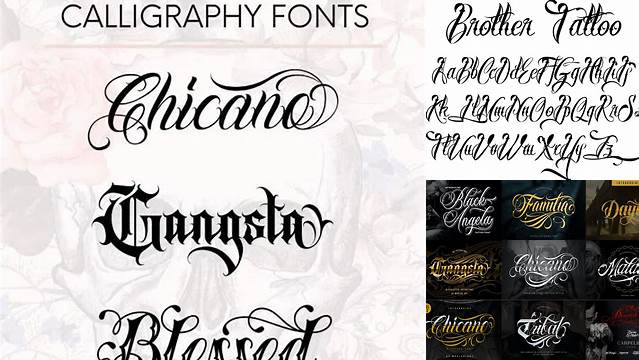
Best Cursive Fonts For Tattoos For Men: Styles & Tips
Hey guys! Getting a tattoo is a big decision, and choosing the right font is just as important as the design itself, especially when you're thinking about cursive fonts. Cursive fonts can add a touch of elegance, personality, and uniqueness to your tattoo. But with so many options out there, how do you pick the perfect one? Don't worry, we've got you covered! This article will walk you through some of the best cursive fonts for tattoos specifically for men, helping you make a choice you'll love for years to come.
Why Choose Cursive Fonts for Tattoos?
Cursive fonts are awesome for tattoos because they bring a certain flow and style that other fonts just can't match. Think about it – a well-chosen cursive font can make your tattoo look super sophisticated and personal. They’re not just about looking pretty; they’re about adding a layer of meaning and emotion to your ink. When you go for a cursive font, you're not just picking letters; you're choosing a vibe, a feeling, and a way to express yourself. So, let’s dive deeper into why these fonts are such a hit and how they can make your tattoo stand out.
One of the main reasons guys opt for cursive fonts is the elegant and fluid aesthetic they offer. Unlike blocky or rigid fonts, cursive mimics handwriting, giving your tattoo a personal and intimate feel. It’s like you’ve penned the words directly onto your skin. This fluidity can make your tattoo look more artistic and less like a standard text, adding a unique touch that really grabs attention. Imagine a quote flowing smoothly along your arm or a name gracefully curving around your wrist – that’s the power of cursive.
Personalization is key when it comes to tattoos, and cursive fonts offer a ton of it. Each font has its own unique flair, from delicate and swirly to bold and dramatic. This means you can find a font that perfectly matches your personality and the message you want to convey. Are you going for a romantic vibe? A light, flowing script might be perfect. Want something with a bit more edge? A bolder, more stylized cursive could be the way to go. This versatility ensures your tattoo isn’t just a design but a true reflection of who you are.
Cursive fonts are also fantastic for incorporating longer quotes or meaningful phrases into your tattoo design. The flowing nature of the script allows words to connect and blend seamlessly, creating a visually appealing piece that tells a story. Think about your favorite quote, a mantra you live by, or a dedication to someone special. Cursive can transform these words into a beautiful and meaningful work of art on your body. The way the letters link together adds a sense of continuity and depth, making the message even more impactful.
Plus, let's be real, cursive fonts just look cool. They have a timeless quality that never goes out of style. From classic scripts to modern interpretations, there’s a cursive font out there for every taste. This timelessness means your tattoo will look just as good years from now as it does the day you get it. It’s an investment in a style that’s proven to stand the test of time, making it a smart choice for something as permanent as a tattoo.
In short, cursive fonts bring a unique blend of elegance, personalization, and timeless style to tattoos. They allow you to express yourself in a way that’s both visually stunning and deeply meaningful. So, if you’re looking for a font that will make your tattoo truly special, cursive is definitely worth considering.
Top Cursive Fonts for Men's Tattoos
Okay, let’s get to the good stuff! We’re diving into some of the top cursive fonts that look amazing on guys. When picking a font, think about the size and placement of your tattoo. Some fonts look better big, while others shine in smaller spaces. Also, consider your personal style – do you want something classic, modern, bold, or delicate? Here are some fantastic options to get your creative juices flowing.
1. Blackletter (Gothic Script)
When you think of Blackletter, you might imagine ancient manuscripts or old-school biker tattoos – and you wouldn't be far off! This font has a strong, bold, and almost medieval vibe that’s super popular for guys who want their tattoos to make a statement. It’s also known as Gothic script, and it’s characterized by its thick, angular strokes and dramatic flair. If you're aiming for a look that's both powerful and classic, Blackletter could be your perfect match. Let’s dig into what makes this font so appealing and how to rock it in your tattoo.
The history of Blackletter fonts is fascinating, and it adds to their unique appeal. They were widely used in Europe from the 12th century through the 17th century, particularly for religious texts and important documents. This historical significance gives the font a sense of weight and authority. When you choose Blackletter, you’re tapping into a rich tradition of calligraphy and lettering. This historical connection can add depth and meaning to your tattoo, making it more than just a design – it’s a piece of history on your skin.
The bold and dramatic style of Blackletter is what really sets it apart. The sharp angles and thick lines create a strong visual impact, making it perfect for tattoos that you want to stand out. It’s not a subtle font; it demands attention. This boldness makes it ideal for larger tattoos, where the details can really shine. Think about a quote across your chest or a powerful word running down your arm – Blackletter can make these designs truly unforgettable.
Blackletter fonts come in a variety of styles, so you can find one that perfectly fits your vision. Some variations are more intricate and ornate, while others are simpler and more streamlined. This versatility means you can tailor the font to match your personal taste and the overall design of your tattoo. Whether you’re going for a super traditional look or something with a modern twist, there’s a Blackletter style that can work for you.
One of the coolest things about Blackletter is its ability to evoke a sense of mystery and power. The dark, heavy lines have a certain gravitas that’s hard to ignore. This makes it a great choice for guys who want their tattoos to convey strength and confidence. It’s a font that speaks volumes without saying a word, perfect for those who want to make a bold statement.
Blackletter is also incredibly versatile in terms of placement. It looks fantastic on areas like the chest, back, and arms, where there’s plenty of space to showcase the intricate details. However, it can also work well in smaller areas, provided the design is simplified. The key is to work with your tattoo artist to find the right size and placement to ensure the font looks its best.
In summary, Blackletter fonts are a fantastic choice for men's tattoos because they offer a unique blend of history, boldness, and style. If you’re looking for a font that’s going to make a statement and stand the test of time, Blackletter is definitely worth considering. It’s a classic for a reason, and when done right, it can create a truly epic tattoo.
2. Script Fonts (Classic Cursive)
Script fonts are the quintessential cursive – elegant, flowing, and oh-so-classic. These fonts mimic handwriting, and they’re perfect for adding a touch of sophistication to your tattoo. When you think of script fonts, imagine wedding invitations or handwritten letters – that’s the kind of timeless charm they bring. For guys looking for a refined and personal touch, script fonts are a go-to choice. Let's explore why these fonts are so beloved and how to make them work for your tattoo.
One of the main draws of script fonts is their timeless elegance. They’ve been around for ages, and they never go out of style. This enduring appeal means your tattoo will look just as good years from now as it does today. It’s an investment in a classic look that’s always in fashion. Whether you’re going for a vintage vibe or a modern twist, script fonts provide a solid foundation of sophistication.
The fluidity and flow of script fonts are what truly set them apart. The letters connect seamlessly, creating a sense of movement and grace. This makes them perfect for longer quotes or phrases, as the words blend together beautifully. Imagine a meaningful quote flowing along your ribs or a loved one's name gracefully curving around your wrist – script fonts can make these designs look incredibly artistic and personal.
Script fonts are also incredibly versatile, with a wide range of styles to choose from. You can find everything from delicate and ornate scripts to bolder and more modern versions. This versatility means you can find a font that perfectly matches your personality and the message you want to convey. Are you aiming for a romantic and gentle feel? A light, flowing script might be ideal. Want something with a bit more presence? A bolder, more stylized script could be the way to go.
Another great thing about script fonts is how personal they feel. Because they mimic handwriting, they add an intimate touch to your tattoo. It’s like you’ve penned the words directly onto your skin. This personal touch can make your tattoo feel more meaningful and connected to you. It’s a way to carry a piece of yourself with you, wherever you go.
Script fonts are also fantastic for names and dates. They add a special touch to memorial tattoos or dedications, making them feel even more heartfelt. The elegant flow of the script can transform a simple name into a beautiful and touching tribute. Whether it’s a loved one’s name or an important date, script fonts can help you honor it in style.
When it comes to placement, script fonts work well in a variety of locations. They look great on the inner forearm, the back of the neck, or along the collarbone. The key is to choose a placement that allows the font to flow naturally and be easily readable. Working with your tattoo artist to find the perfect placement is essential for achieving the best result.
In short, script fonts are a top choice for men's tattoos because they offer a blend of timeless elegance, fluidity, and personal touch. If you’re looking for a font that’s going to add a sophisticated and meaningful element to your ink, script fonts are definitely worth considering. They’re a classic for a reason, and when done well, they can create a truly stunning tattoo.
3. Italic Fonts
Italic fonts bring a touch of flair and sophistication to any tattoo. They're known for their slanted appearance, which gives them a sense of movement and energy. If you want a cursive font that’s both stylish and readable, italics are a fantastic choice. They add a subtle elegance without being overly ornate, making them perfect for guys who want a refined yet impactful tattoo. Let's explore the unique charm of italic fonts and how they can elevate your tattoo design.
One of the key characteristics of italic fonts is their slanted design. This slant gives the letters a sense of forward motion, adding a dynamic feel to your tattoo. It’s as if the words are flowing across your skin, creating a visually appealing effect. This sense of movement makes italic fonts stand out from more static styles, adding a touch of excitement to your ink.
Readability is a major advantage of italic fonts. While some cursive fonts can be difficult to decipher, italics tend to be clearer and more legible. This makes them a practical choice for tattoos that you want to be easily understood. You can express your message without sacrificing style, ensuring your tattoo looks great and is easy to read.
Italic fonts also have a subtle elegance that’s hard to resist. They’re not as overtly decorative as some script fonts, but they still bring a touch of sophistication to the table. This understated elegance makes them perfect for guys who want a tattoo that’s stylish without being too flashy. It’s a refined look that’s both classic and contemporary.
Another great thing about italic fonts is their versatility. They work well with a variety of tattoo designs, from simple words and phrases to more complex artwork. This versatility means you can incorporate italics into your tattoo no matter your personal style. Whether you’re going for a minimalist look or something more elaborate, italics can complement your design perfectly.
Italic fonts are also excellent for emphasizing certain words or phrases. The slanted style naturally draws the eye, making it a great way to highlight key parts of your tattoo. Think about using italics for a meaningful word in a quote or a significant date in a memorial tattoo. This subtle emphasis can add depth and meaning to your design.
When it comes to placement, italic fonts look fantastic in a variety of locations. They work well on the wrist, forearm, and even the back of the neck. The key is to choose a placement that allows the slant of the letters to flow naturally with your body’s contours. Working with your tattoo artist to find the perfect placement is essential for achieving the best result.
In summary, italic fonts are a superb choice for men's tattoos because they offer a blend of style, readability, and versatility. If you’re looking for a font that’s going to add a touch of elegance and movement to your ink, italics are definitely worth considering. They’re a classic option that can elevate your tattoo design and make it truly stand out.
Tips for Choosing the Right Cursive Font
Alright, so you’re digging cursive fonts – awesome! But with so many cool options, how do you nail down the perfect one for your tattoo? Don't sweat it; we’ve got some tips to help you out. Think about these factors to make sure your font choice is spot-on and you’ll love your tattoo for years to come.
1. Readability is Key
First and foremost, you want people to be able to read your tattoo! Super fancy, swirly fonts might look cool, but if they’re a pain to decipher, what’s the point? Make sure the font you choose is clear and legible, especially if you’re going for a longer quote or phrase. A beautiful font that no one can read is like a secret message – cool in theory, but not so practical in reality.
When you’re evaluating readability, consider the size of your tattoo. Smaller tattoos need simpler fonts that won’t blur together. Larger tattoos can handle more intricate designs, but still need to be clear enough to read from a reasonable distance. Think about how the font will look on your skin over time, too. Some fonts may lose definition as the ink settles, so choosing a font with clear lines is crucial.
The best way to test readability is to see the font in action. Ask your tattoo artist for a sample of your chosen font in the size you’re planning for your tattoo. This will give you a realistic idea of how the font will look on your skin. You can also try writing out the words or phrase yourself in the font style to get a feel for its clarity and flow. This hands-on approach can help you catch any potential readability issues before you commit to the tattoo.
Another thing to consider is the placement of your tattoo. Certain areas of the body, like the ribs or back, have more curves and contours, which can affect how a font looks. A font that seems perfectly readable on paper might look distorted or cramped on the body. Working with your tattoo artist to find the optimal placement and font size is essential for ensuring readability.
In short, readability should be your top priority when choosing a cursive font. A stylish tattoo is great, but a clear and legible tattoo is even better. By focusing on readability, you can ensure your tattoo looks fantastic and conveys your message effectively.
2. Match the Font to Your Style
Your tattoo is a reflection of you, so the font should match your personal style. Are you a classic kind of guy? A timeless script might be perfect. More of a bold, edgy dude? Blackletter could be your jam. Think about your overall aesthetic and choose a font that complements it. After all, your tattoo is a piece of art that you’ll wear every day, so it should feel like a natural extension of your personality.
Consider the message you want to convey with your tattoo. Is it a romantic quote, a powerful mantra, or a dedication to someone special? The font should enhance the meaning of your words. A delicate script might be perfect for a love quote, while a bolder font could be more suitable for a statement of strength. Matching the font to the message adds depth and resonance to your tattoo.
Your existing tattoos can also influence your font choice. If you already have tattoos, you might want to choose a font that complements the style of your other ink. This can create a cohesive look and tie your tattoos together. Alternatively, you might want to choose a font that stands out and adds a new dimension to your collection. Either way, considering your existing tattoos is a key part of the font selection process.
Don’t be afraid to experiment with different fonts and see what resonates with you. Try out different styles, sizes, and placements. Look at examples of tattoos with similar fonts to get inspiration. The more you explore, the better you’ll understand what you like and what fits your style. Your tattoo artist can also provide valuable guidance and suggest fonts that they think would work well for your design.
In conclusion, matching the font to your personal style is essential for creating a tattoo that you’ll love. Your tattoo should be a true reflection of who you are, and the font plays a crucial role in conveying that. By choosing a font that resonates with your style and message, you can create a tattoo that’s both meaningful and visually stunning.
3. Consider the Placement
Where you put your tattoo matters! Some fonts look better in certain spots than others. A long, flowing script might be amazing on your ribs, but cramped on your wrist. A bold, blocky font could rock on your chest, but be too intense for your finger. Think about the shape and size of the area you’re tattooing and how the font will fit there. It’s all about creating balance and harmony between the design and your body.
The size of the font is also closely tied to placement. Smaller areas require smaller, simpler fonts that won’t blur together. Larger areas can accommodate more intricate designs, but the font still needs to be legible. Consider how the font will look from different angles and distances. A font that looks great up close might not be as clear from a few feet away, and vice versa.
Movement is another factor to consider. Areas that move a lot, like the wrist or fingers, can cause the tattoo to shift and distort slightly. This can affect the readability of the font, especially for delicate or intricate styles. Choosing a font that’s bold and clear can help mitigate this issue. It’s also a good idea to work with your tattoo artist to choose a placement that minimizes movement and ensures the tattoo looks its best.
The contours of your body can also influence font choice. Curved areas, like the ribs or back, can make certain fonts look distorted. A font that flows naturally with the curves of your body will look more harmonious and visually appealing. Your tattoo artist can help you choose a font and placement that work well with your body’s shape.
In short, considering placement is a crucial step in choosing the right cursive font. The location of your tattoo can significantly impact how the font looks and feels. By thinking about the size, shape, movement, and contours of the area you’re tattooing, you can choose a font that fits perfectly and creates a stunning visual effect.
Choosing the perfect cursive font for your tattoo is a big deal, guys! It’s about finding a style that not only looks awesome but also reflects your personality and the message you want to share. Take your time, do your research, and chat with your tattoo artist. They’re the pros and can offer amazing insights. With the right font, your tattoo will be a work of art you’ll be proud to show off for years to come. So go ahead, get inked, and rock that cursive!
Remember, the best cursive font for your tattoo is the one that speaks to you. It’s about finding a style that resonates with your personal aesthetic and conveys your message effectively. By considering readability, style, and placement, you can narrow down your options and choose a font that you’ll love for a lifetime. Your tattoo is a permanent expression of who you are, so make sure it’s a masterpiece that you’re excited to wear.